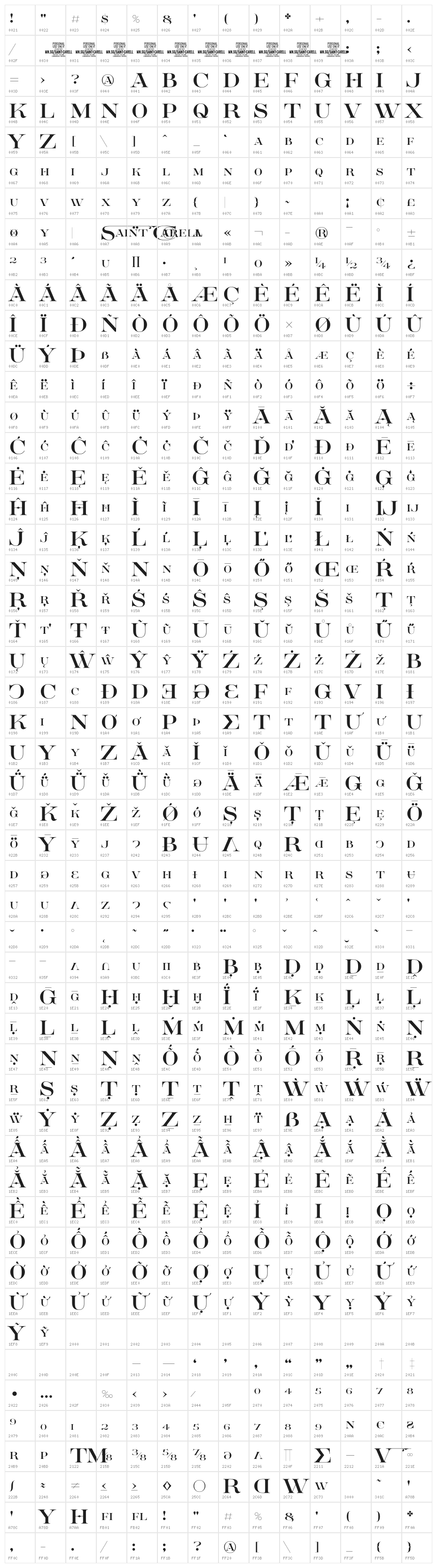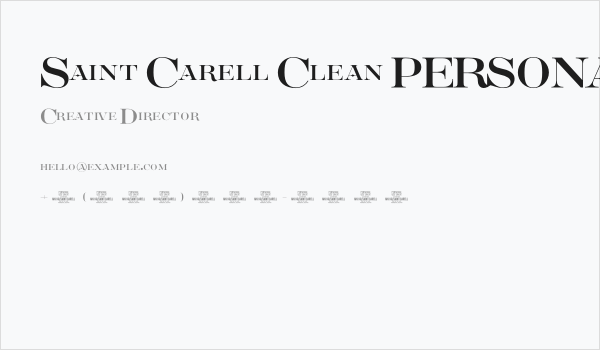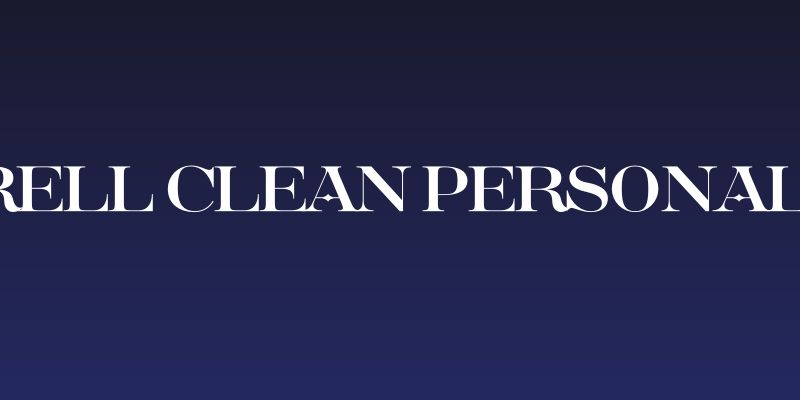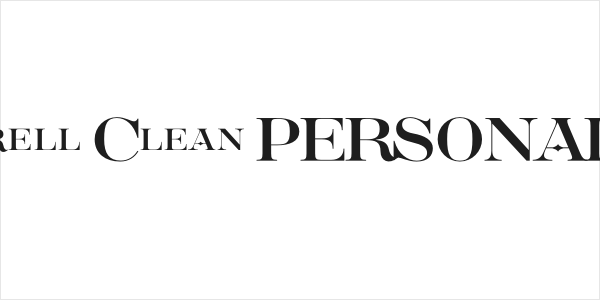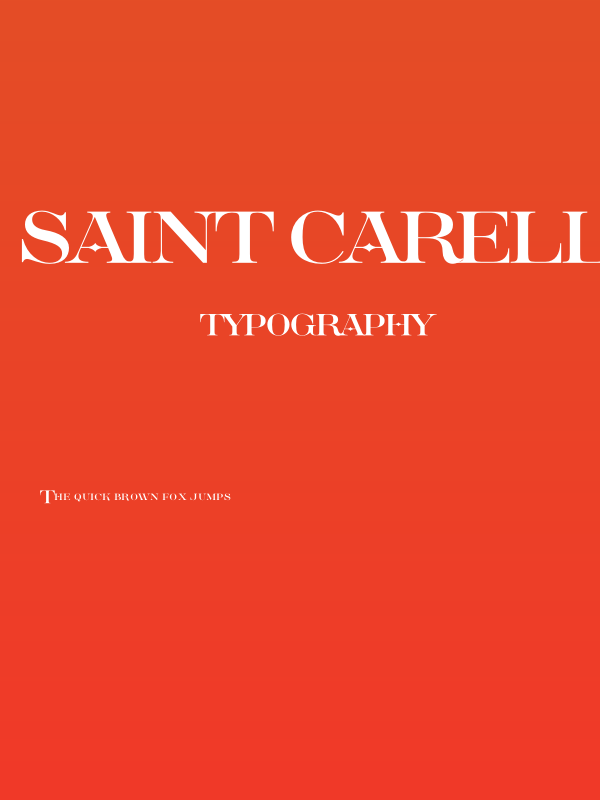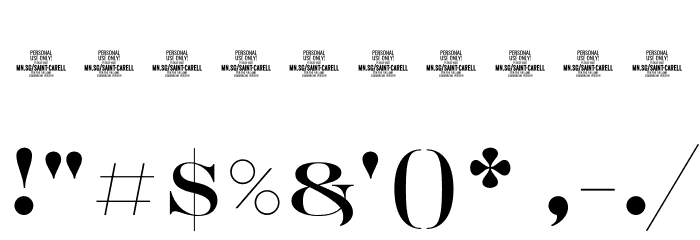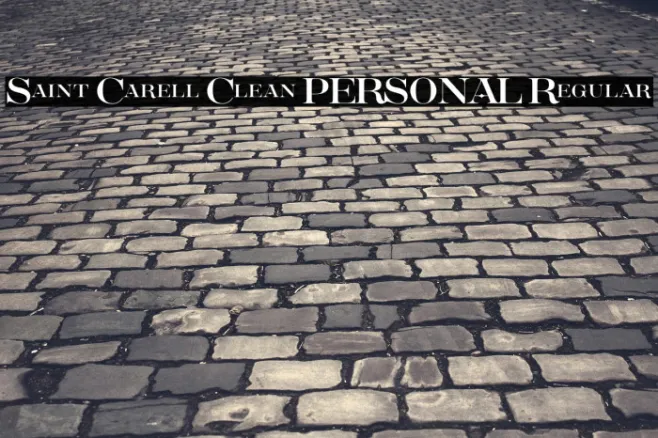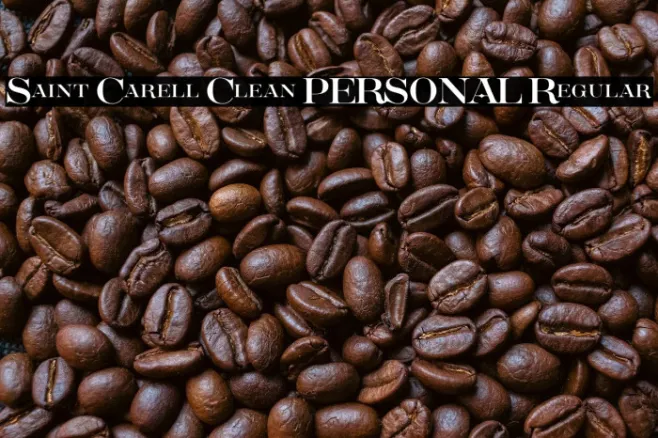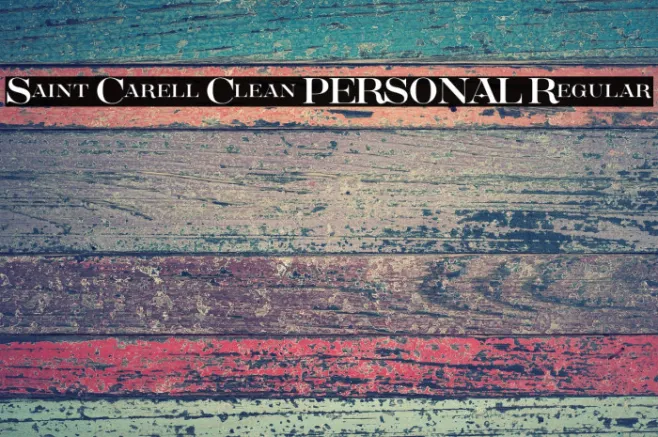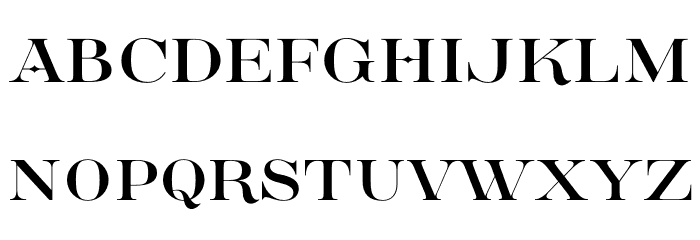
Saint Carell Clean PERSONAL Regular Font
Saint Carell Clean PERSONAL Regular Description
This font features a classic serif style with elegant and sharp serifs that give it a sophisticated and timeless appearance. The uppercase letters are bold and commanding, while the lowercase letters maintain a balanced and harmonious look. The numerals and special characters are designed with the same attention to detail, ensuring consistency throughout. The overall design is clean and precise, making it suitable for a variety of formal and professional applications. The contrast between thick and thin strokes is moderate, adding to its readability and aesthetic appeal.
| Overall Style | Classic |
| Use Case | Headlines, Body text, Logos |
| Proposed Projects | Ideal for use in editorial design, book covers, formal invitations, and branding projects that require a touch of elegance and tradition. |